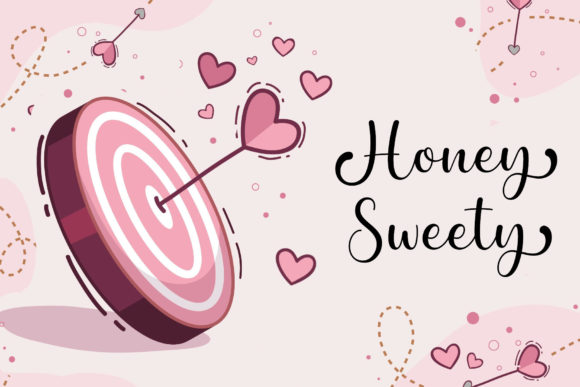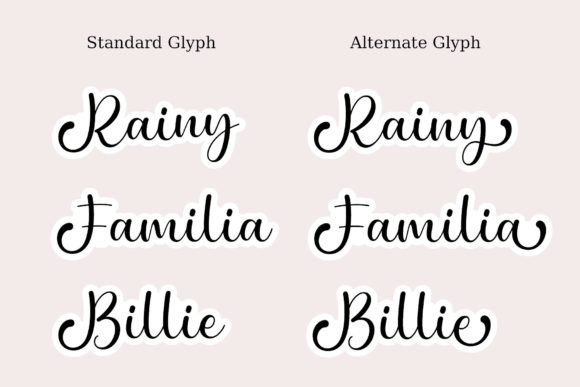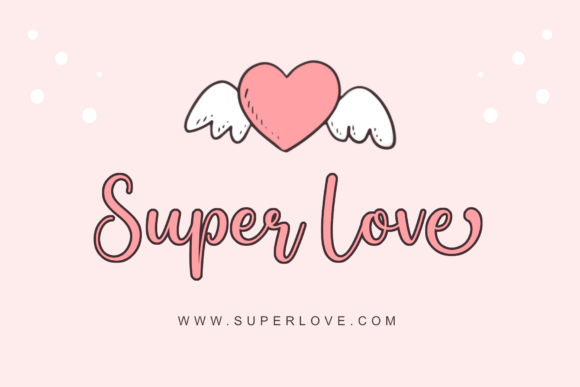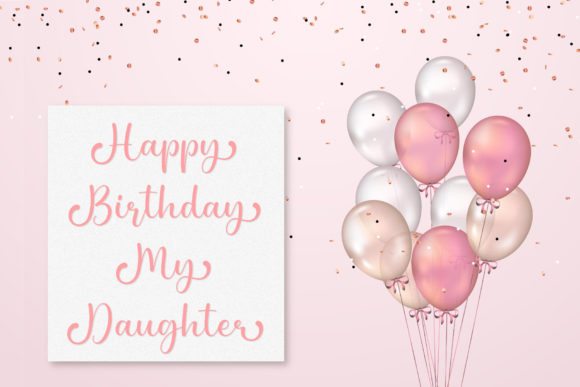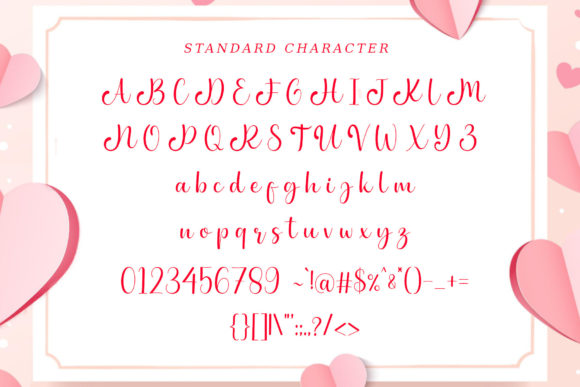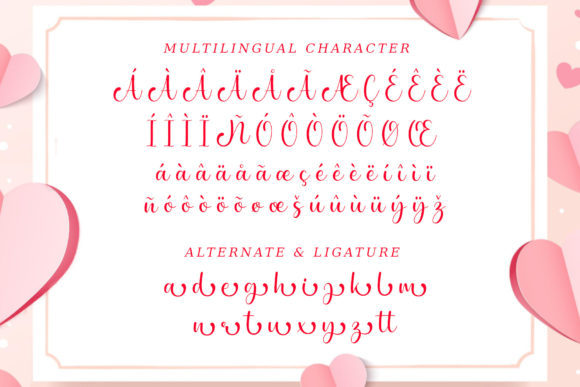
Metta Dahlia Font
About Metta Dahlia Font
Metta Dahlia is a chic and flowing handwritten font. It has a classy, elegant and modern look that can be used for logos, branding, invitations, stationery, wedding designs, social media posts, and much more!